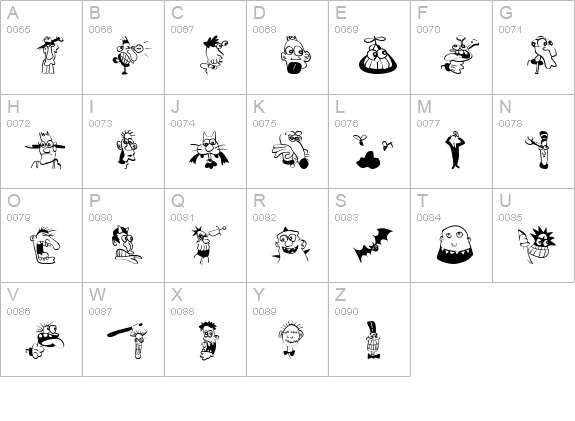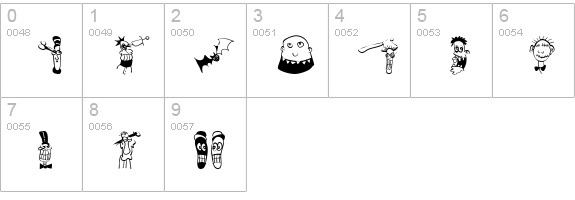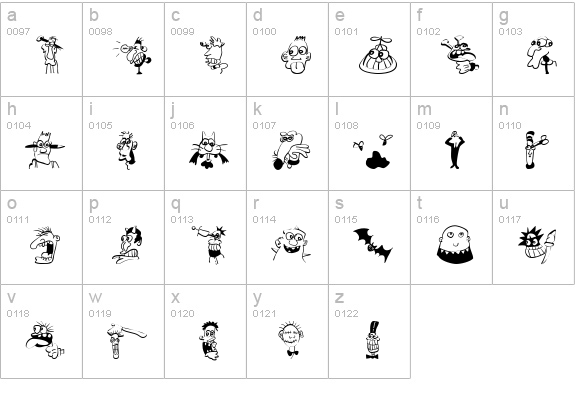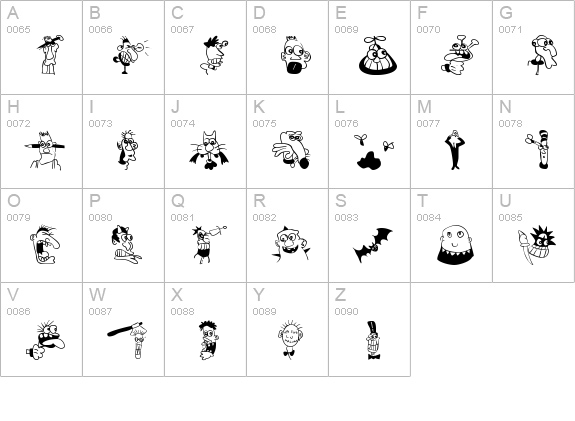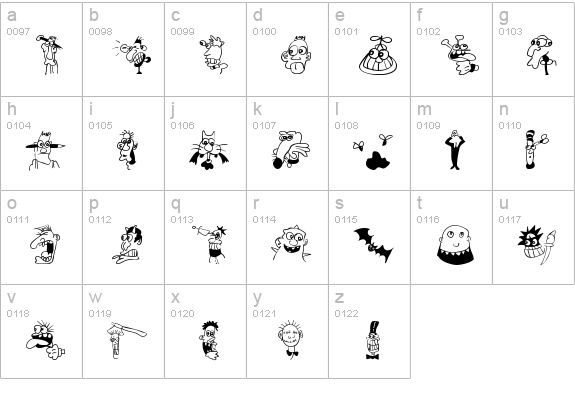
StrangeTypes Font Details
Introducing StrangeTypes font – a unique and captivating typeface that is sure to make your designs stand out from the crowd. This font features a bold and unconventional style that is perfect for adding a touch of quirkiness to any project. With its intriguing shapes and intricate details, StrangeTypes font is ideal for creating eye-catching headlines, logos, posters, and more. What sets StrangeTypes font apart is its versatility – it can be used in a wide range of design projects, from modern and edgy to playful and whimsical. Whether you're working on a branding project, a social media graphic, or a packaging design, this font is sure to make a bold statement. And the best part? StrangeTypes font is available for free download at FontsMarket.com! That's right, you can get your hands on this unique and stylish font without spending a dime. So why wait? Download StrangeTypes font today and add a touch of strangeness to your designs!